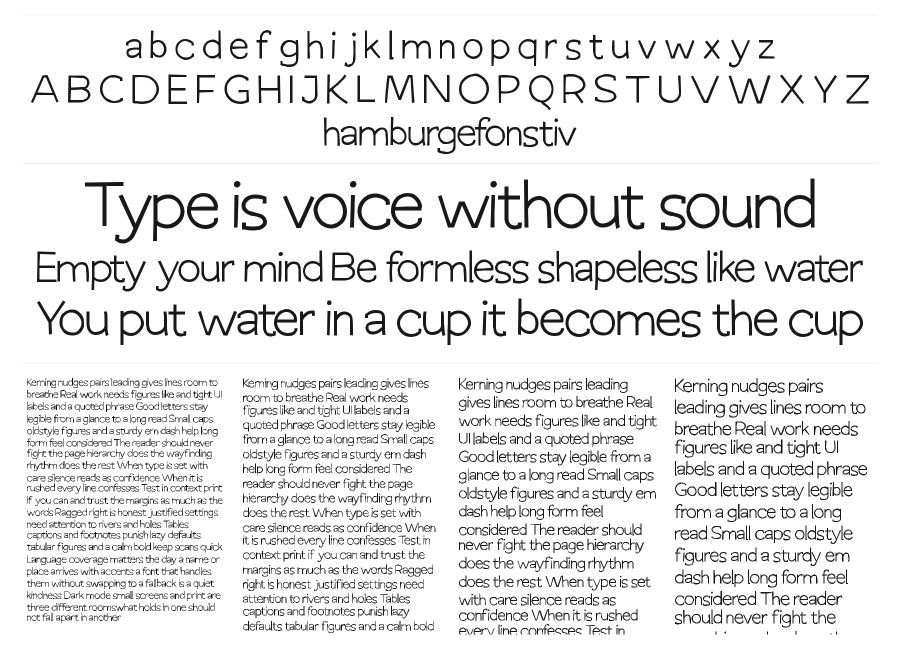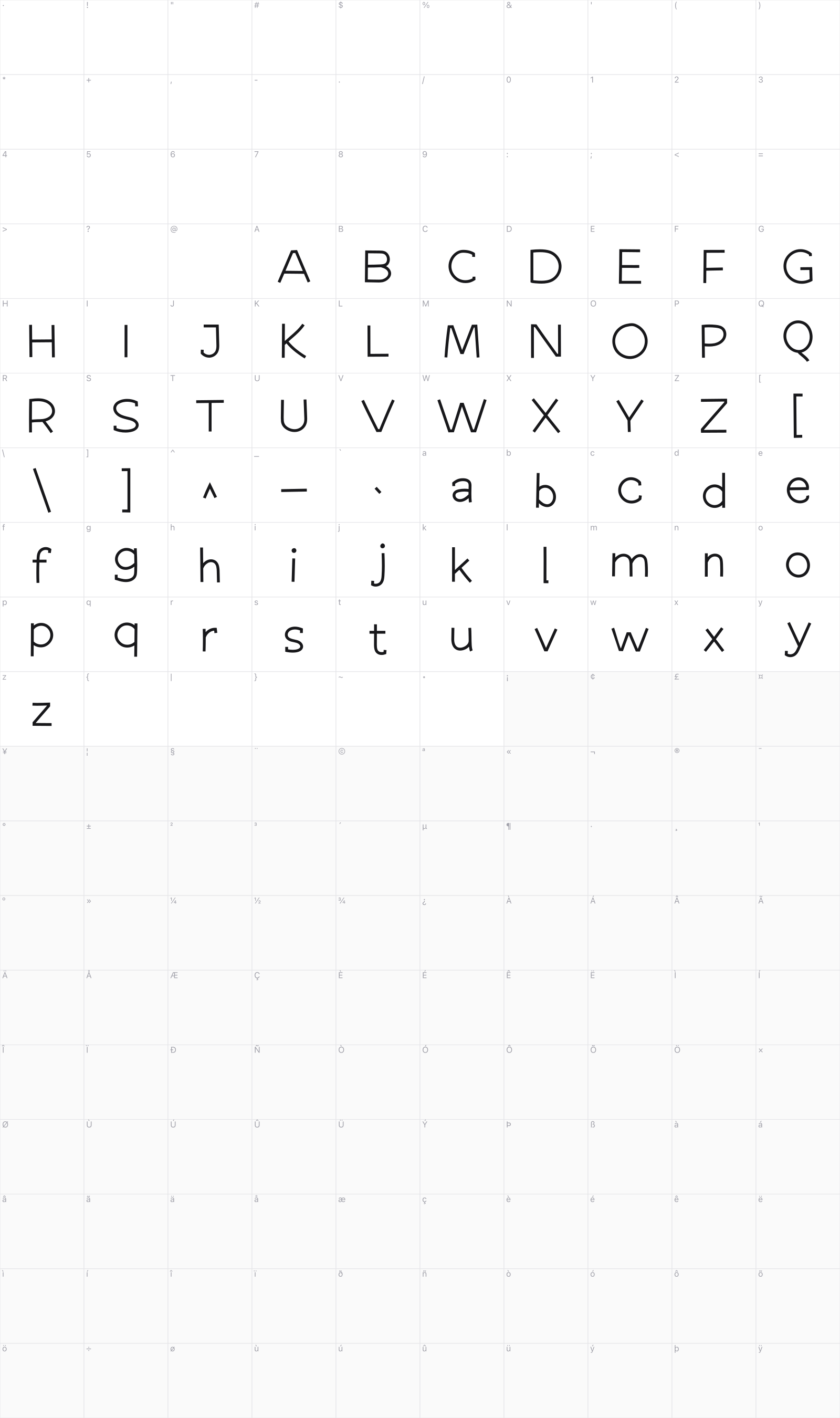
Picturesque
by Hanna Bie
Picturesque is a geometric sans-serif with rounded terminals and an even, near-monoweight stroke that gives it a calm, friendly presence. It sits comfortably between the coldness of strict geometric modernism and something more human, making it versatile across branding, editorial, and lifestyle contexts. The wide, open proportions read clearly at display sizes without feeling heavy.